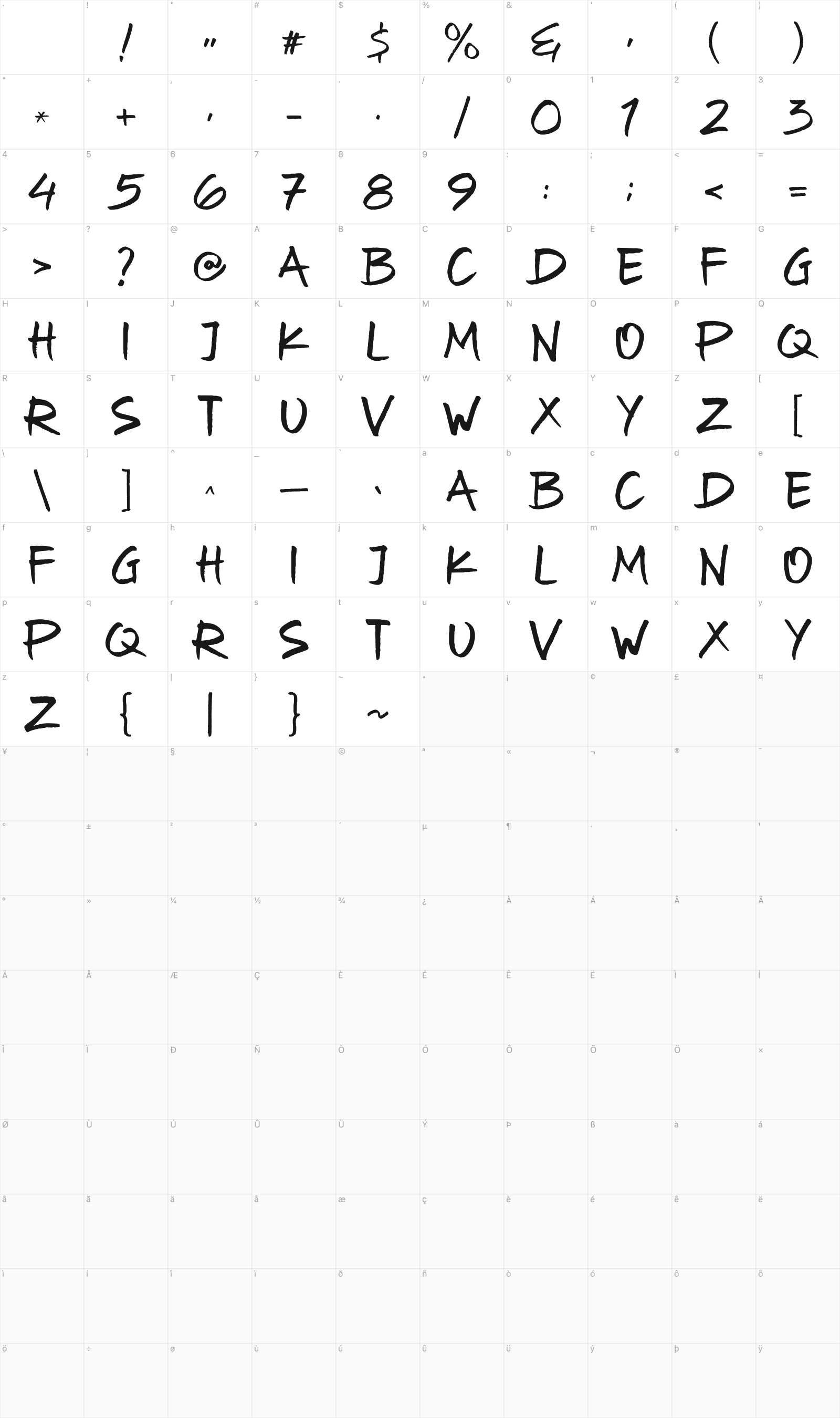
Oyget!
Oyget! is a bold, all-caps brush font drawn with the loose energy of fast hand-lettering. Strokes are thick and irregular, with frayed terminals and shifting baselines that keep it feeling alive and unpolished. It works well wherever a design needs raw personality over refinement.